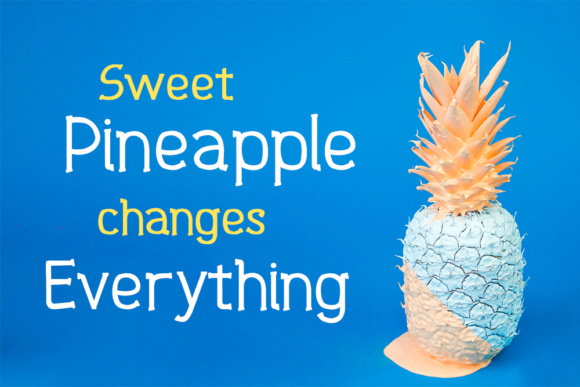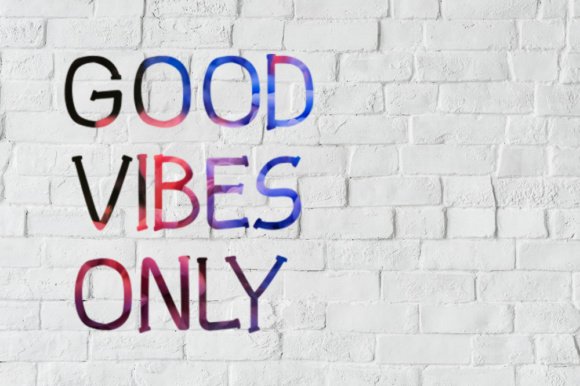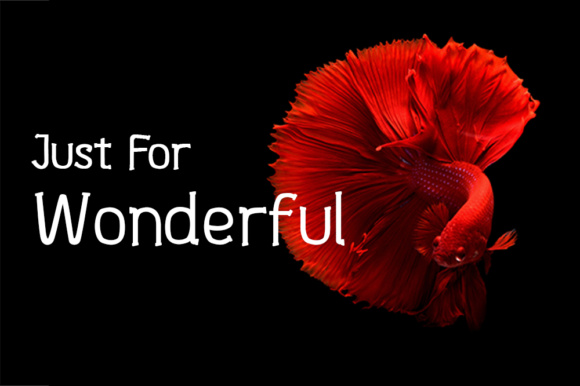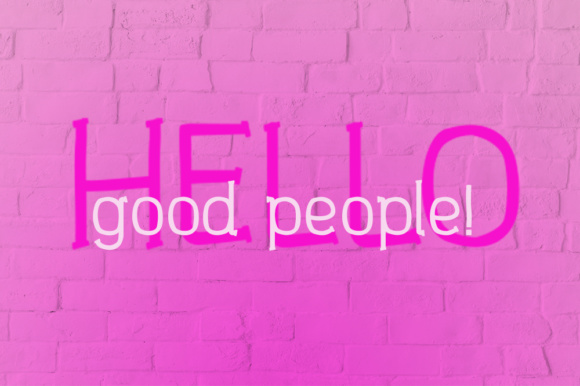
Octopus Grid: A Unique and Modern Handwritten Slab Serif Font
Octopus Grid is a distinctive slab serif font that stands out with its unique and modern handwritten aesthetic. This typeface offers designers a creative tool for adding a personal touch to their typography while maintaining the structure of a slab serif.
Key Features of Octopus Grid Font
- Unique Handwriting Style: Features a very distinctive handwritten look
- Modern Aesthetic: Combines contemporary design with a handcrafted feel
- Slab Serif Structure: Maintains the characteristic thick, rectangular serifs of slab serif fonts
- Versatile Application: Perfect for various creative projects
Ideal Uses for Octopus Grid
Octopus Grid’s unique characteristics make it particularly well-suited for:
- Eye-catching headlines and titles
- Branding projects requiring a personal touch
- Creative advertising and marketing materials
- Book covers and editorial designs
- Social media graphics and digital content
Comparison with Other Slab Serif Fonts
While Octopus Grid shares the slab serif structure with fonts like Tecnica Slab Family, its handwritten style sets it apart. Unlike more traditional slab serifs such as Osgood Slab, Octopus Grid offers a more organic and personal approach to typography.
When incorporating Octopus Grid into your designs, consider the following tips:
- Use for headlines or short blocks of text to showcase its unique handwritten character
- Pair with simpler sans-serif fonts for body text to create contrast
- Consider using it in projects where you want to convey creativity and a personal touch
- Experiment with different sizes to highlight the font’s handcrafted details
Octopus Grid is an excellent choice for designers looking to add a unique, handwritten flair to their work while maintaining the structure of a slab serif. Its modern and personal aesthetic makes it stand out in the world of typography. Whether you’re working on logo designs, creating eye-catching poster designs, or developing branding for creative projects, Octopus Grid offers the perfect blend of personality and readability.
Explore how Octopus Grid can bring a fresh and handcrafted edge to your design projects. From creative branding to unique editorial designs, this font provides the tools to create impactful and memorable typography that stands out in various design contexts.